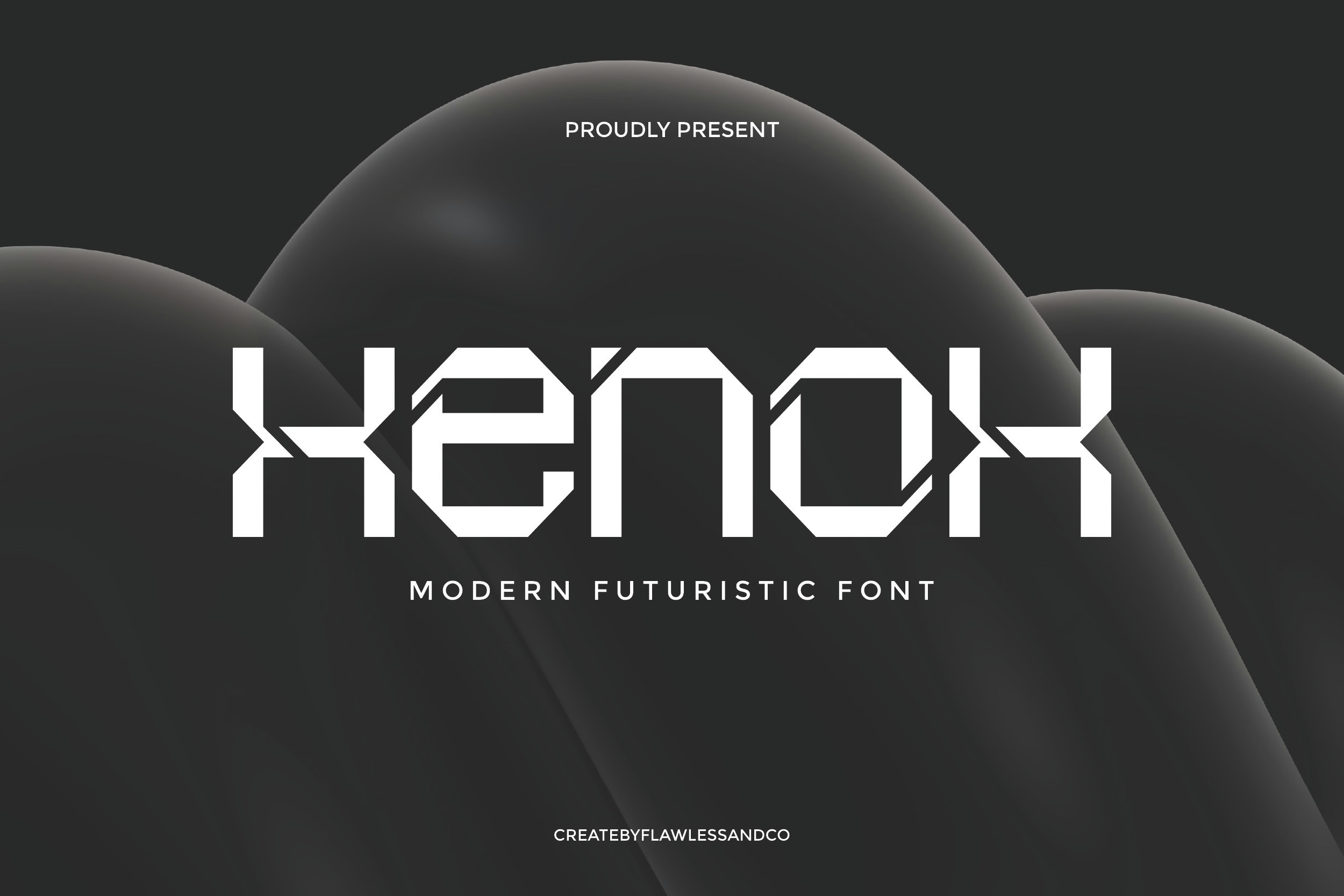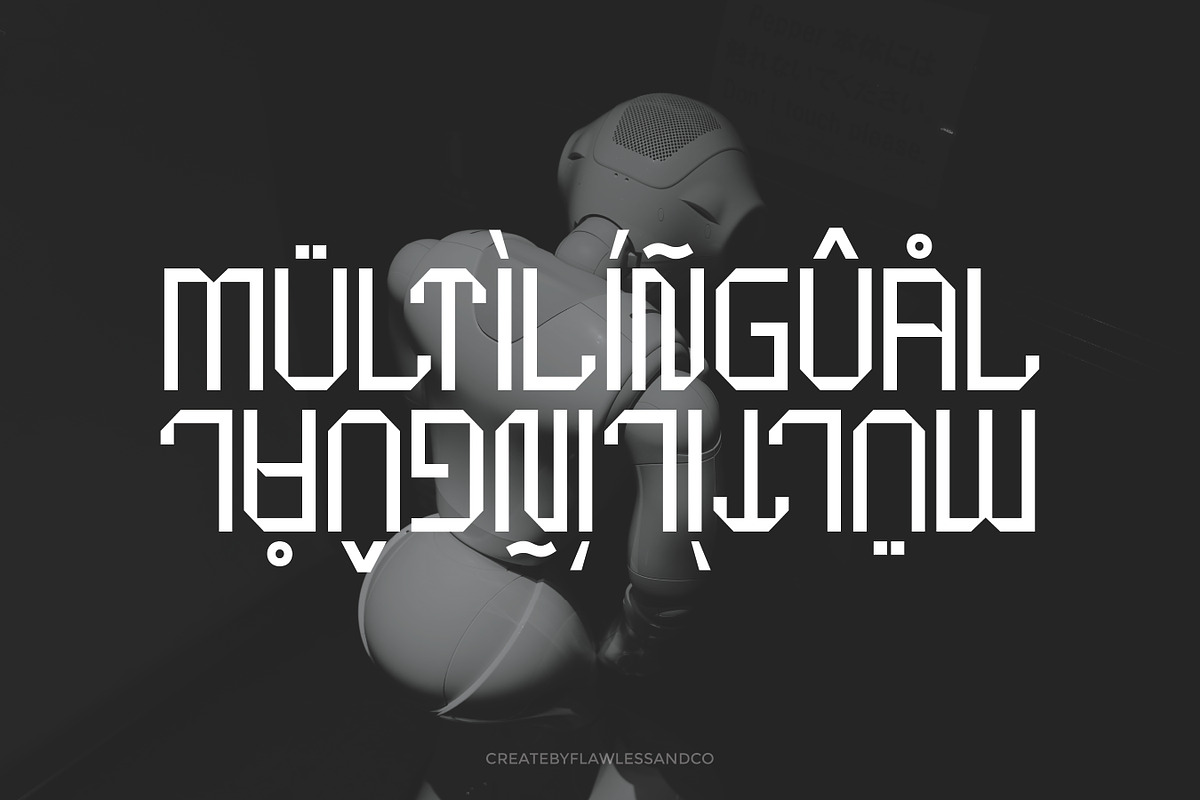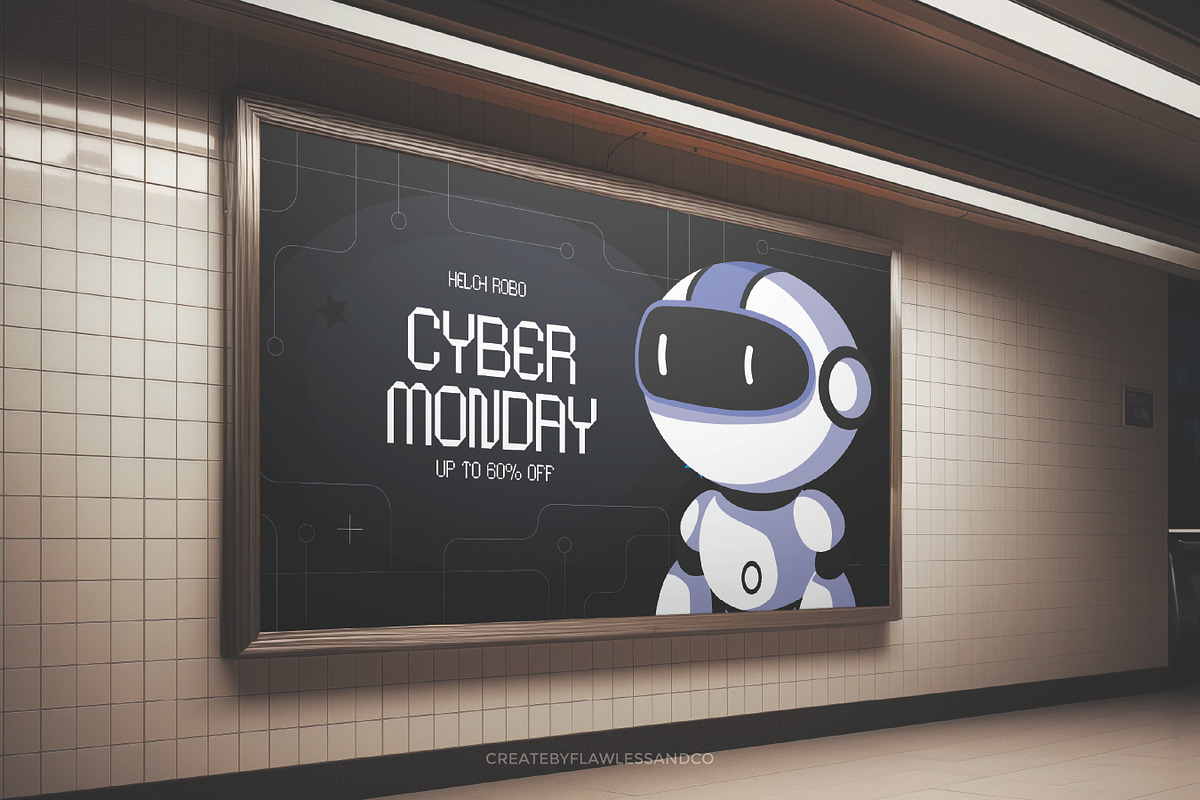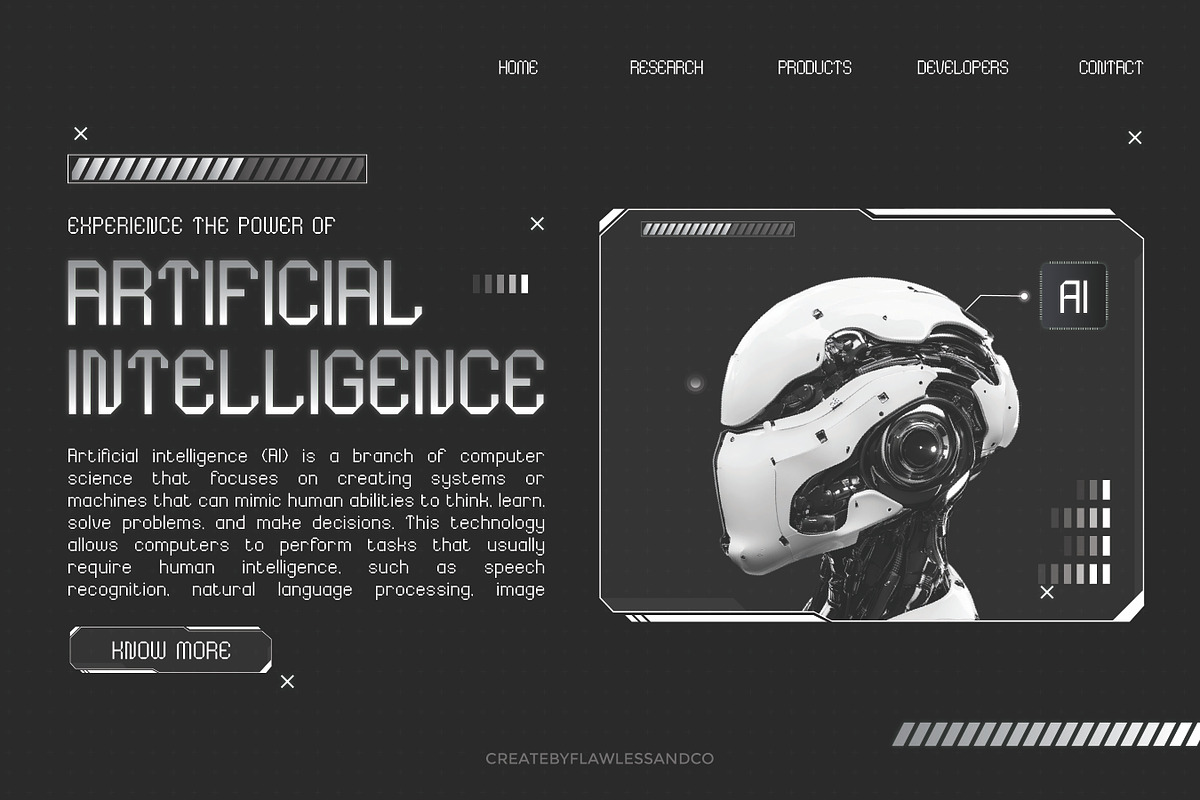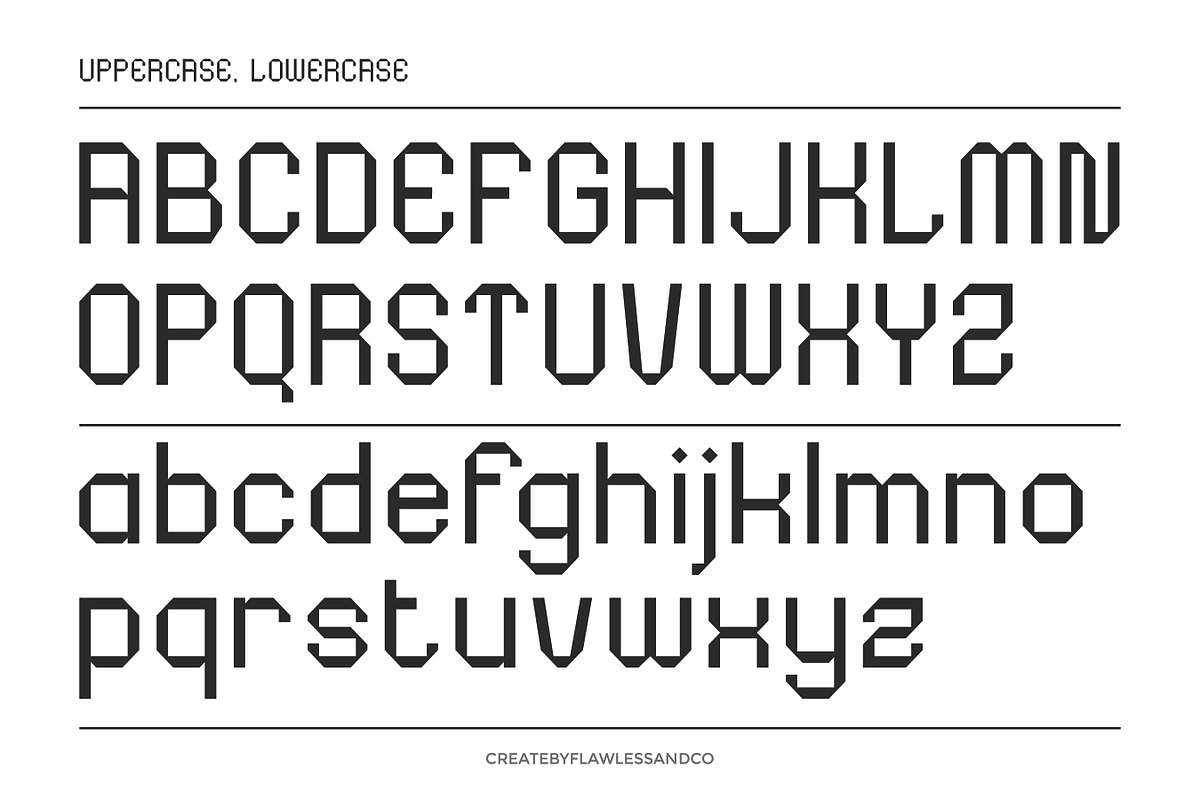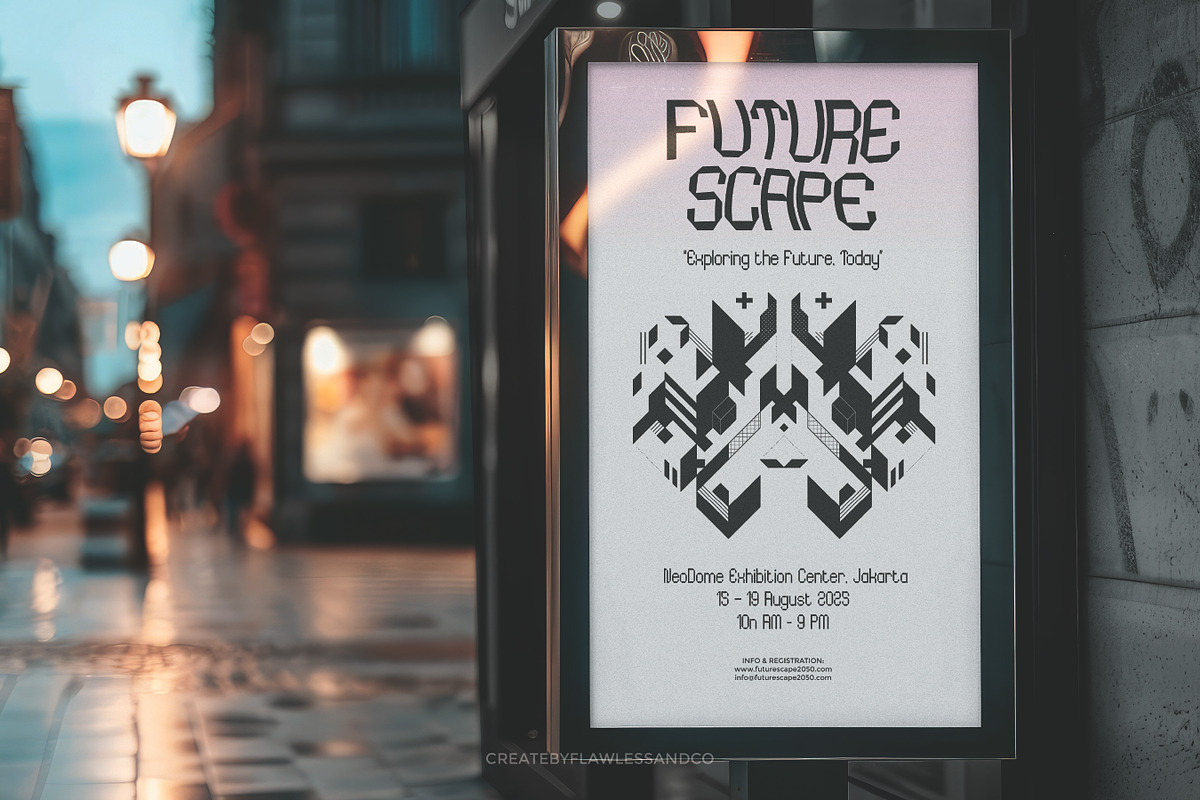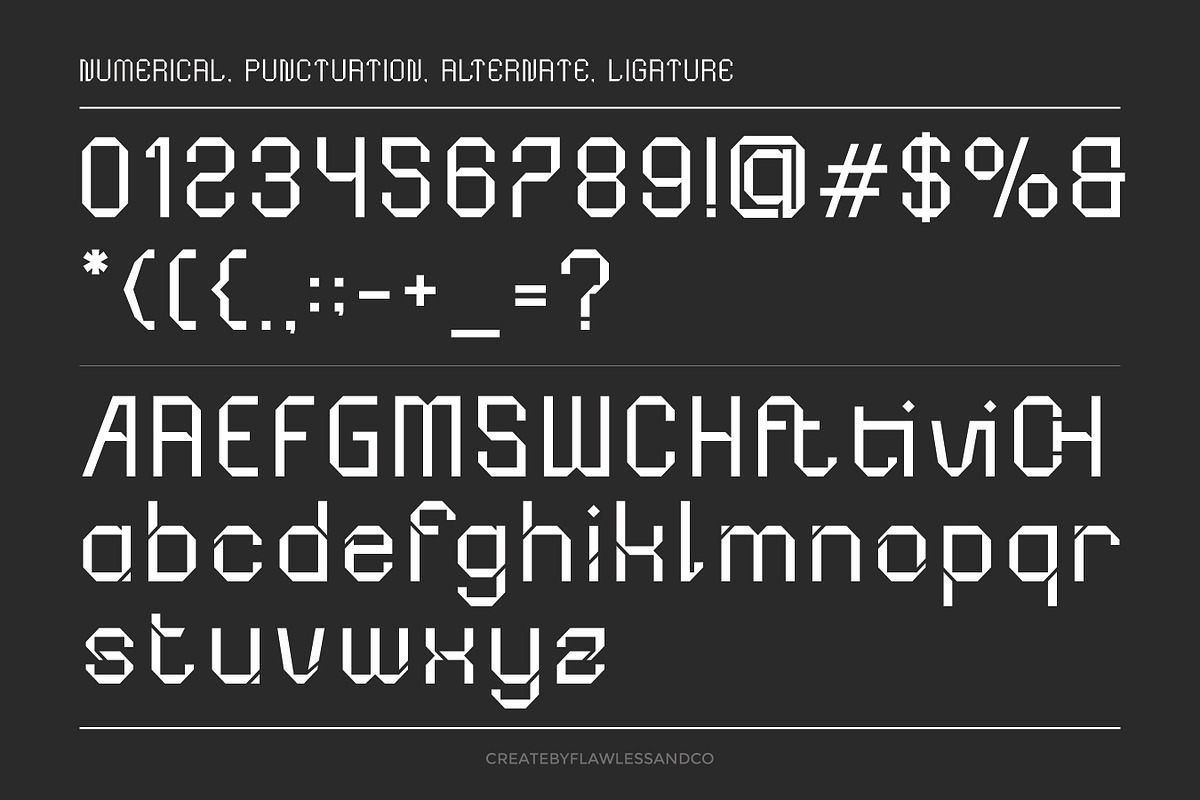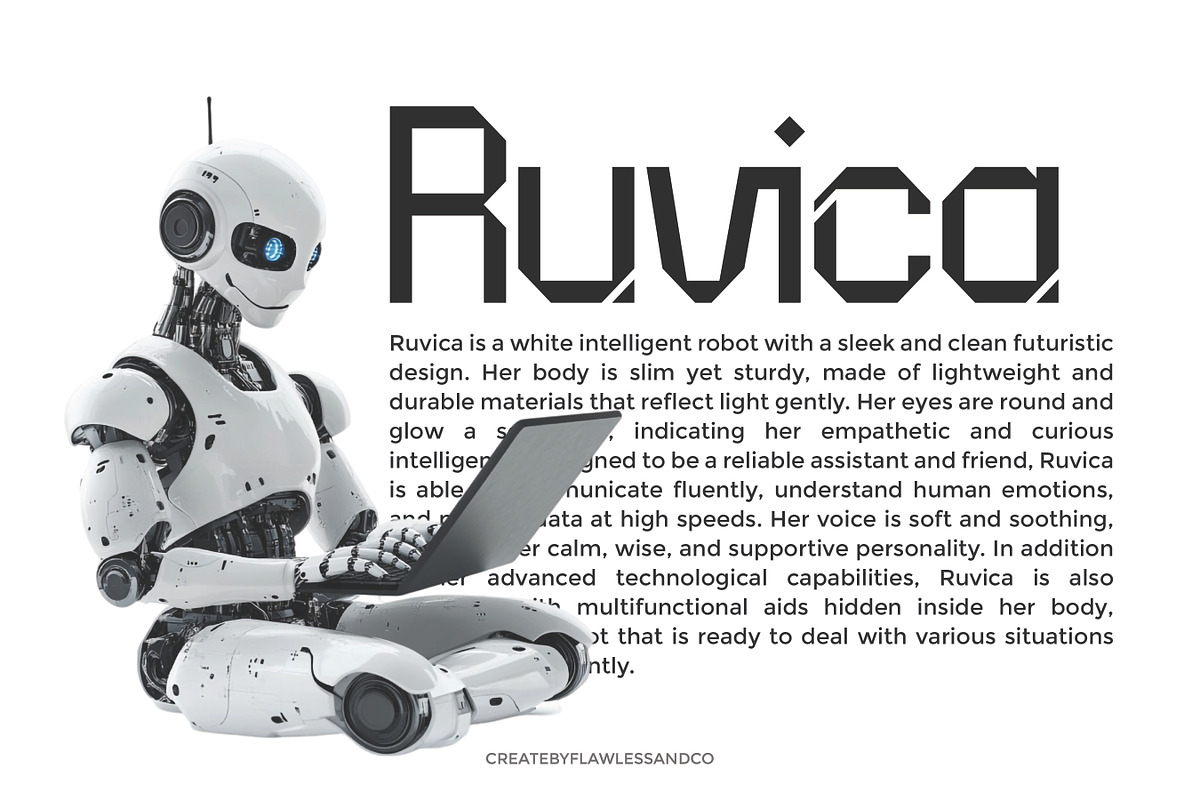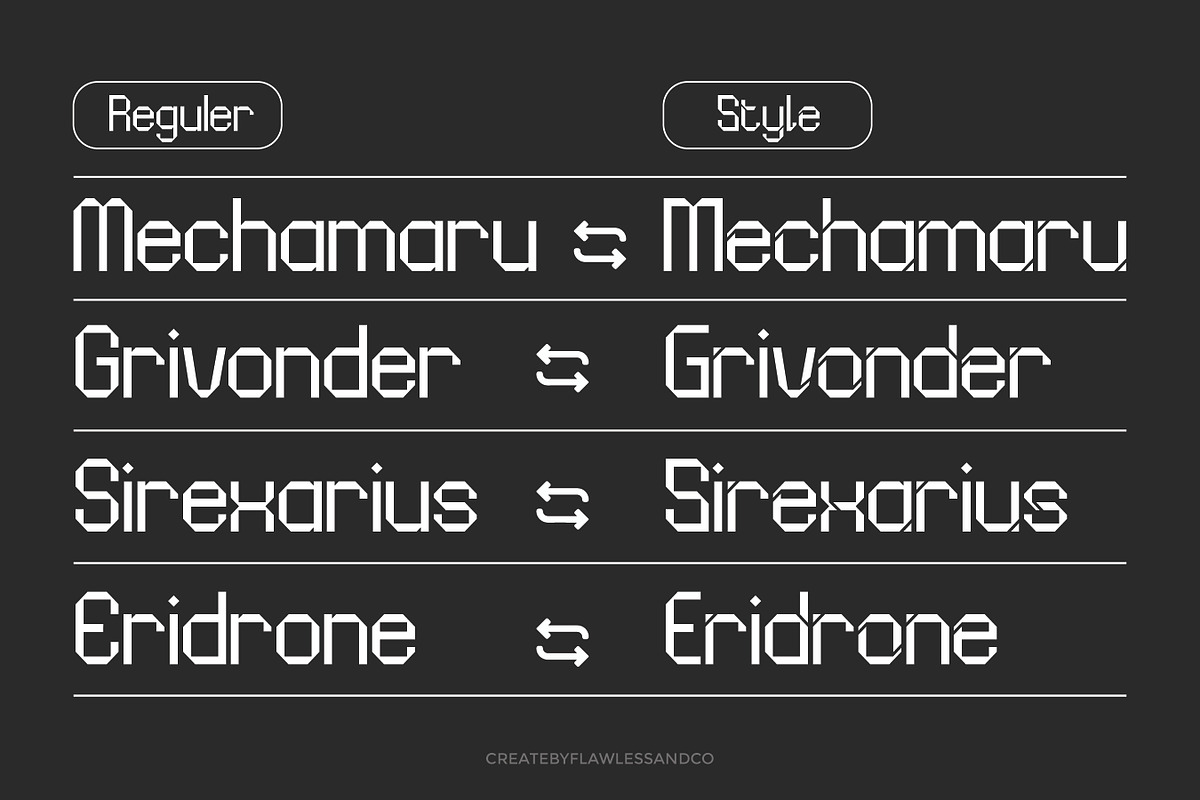
Xenox - Futuristic Font
Xenox – Modern Futuristic Font
Xenox is a modern futuristic font that blends minimalism with high-tech precision. Designed with clean geometry and contemporary structure, Xenox offers a sleek, refined look perfect for forward-thinking branding and digital innovation. With its sharp lines, smooth curves, and balanced proportions, Xenox brings a futuristic tone without feeling overly stylized—making it ideal for technology brands, modern interfaces, digital ads, and lifestyle products that embrace the future. Xenox stands at the intersection of elegance and technology, giving your typography a confident and sophisticated edge. Features:
Who Should Use Xenox?
Xenox is designed for creators, designers, and brands who want to bring a futuristic, high-tech aesthetic into their work. This font is perfect for:
- Tech startups & digital agencies building bold, modern brand identities
- Esports teams & game developers designing sharp, immersive logos and interfaces
- Futuristic film & sci-fi media projects in need of a strong, cinematic title font
- App & UI/UX designers looking for sleek, digital typography for interfaces and dashboards
- Poster & cover designers crafting edgy, tech-inspired visuals
- Creators of gadgets, electronics, or AI products wanting a forward-focused font style
If your vision is bold, digital, and future-driven—Xenox is built for you.
A Must-Have Font for Brand and Logo Creators and Designers
Xenox is an essential choice for designers looking to craft bold, modern brand identities with a futuristic edge. Its clean structure and forward-looking aesthetic make it ideal for logos that need to feel innovative, refined, and timeless. Whether you're working on a tech startup, digital lifestyle brand, or smart product packaging, Xenox delivers a sleek, professional tone that helps your brand stand out in a competitive market. Its versatile letterforms and subtle alternates give you the flexibility to create logos that feel custom and intentional. If your goal is to build brands that look ahead—Xenox is the font you can trust to lead the way.
Why Choose Xenox for Brand and Logo Projects?
Xenox brings a perfect balance of modern style and futuristic character, making it an excellent choice for building bold and timeless brand identities. Here’s why Xenox stands out:
- Clean, Professional Aesthetic
Its minimal yet futuristic design delivers a polished and forward-thinking look that works across a wide range of industries.
- Versatile for Modern Branding
From tech startups to digital products and lifestyle brands, Xenox adapts effortlessly while maintaining a distinct personality.
- Customizable with Alternates & Ligatures
Easily create unique wordmarks and logo compositions that feel tailored and sophisticated.
- Memorable & Distinctive
Its sharp angles and smooth flow give your brand a confident voice and strong visual presence.
- Optimized for Digital & Print
Whether it's a sleek website header, app icon, or product packaging, Xenox performs beautifully across all media.
Choose Xenox when your brand demands clarity, innovation, and a smart, modern identity.